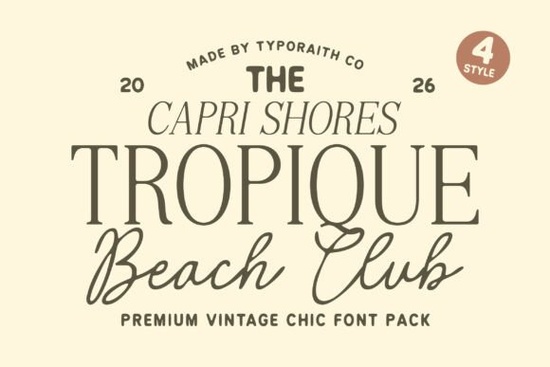
If you're after a typeface that feels like a sun-soaked afternoon at a coastal resort, the Tropique Font delivers that effortlessly. This isn't just one font – it's a complete pack called Tropique Beach Club, blending elegant serif lettering with flowing handwritten scripts. Think luxury hotel branding, vintage editorial layouts, and modern Mediterranean charm all rolled into one download.
What styles are included in the Tropique Font pack?
The collection comes with four distinct styles so you can mix and match without hunting for complementary fonts:
- Elegant serif – clean, refined characters with a timeless feel.
- Flowing signature script – natural handwritten strokes that add a personal, upscale touch.
- Italic serif – slightly slanted for a more relaxed yet sophisticated look.
- Bonus extras – often includes swashes and alternates to customize your text.
This variety means you can use the serif for headlines and the script for subtext or accent words – all while keeping a cohesive, beach-club vibe.
How can I use Tropique Font in branding and logos?
Whether you're designing for a boutique hotel, a coastal café, or a beauty brand, this font pack works well because it balances relaxed with refined. The serif gives you authority and elegance; the script adds approachability. For a logo, try pairing the serif for the business name and the script for a tagline. Or use the script alone for a handwritten, personal brand mark.
If you work with print-on-demand, think about using it on tote bags, ceramic mugs, or beach towels – the coastal theme is built right in. Small businesses selling artisanal products will also find it fits packaging, labels, and hang tags.
Is Tropique Font suitable for wedding invitations?
Absolutely. The combination of elegant serifs and natural script creates exactly the classy-but-warm feel couples look for. Use the serif for the couple's names and the script for details like date and venue. The vintage influence makes it a great choice for rustic, boho, or seaside ceremonies. You can also use it on save-the-dates, menu cards, and thank-you notes without needing to switch font families.
Where else can I use this font pack?
Beyond branding and weddings, try it on:
- Social media templates – Instagram quotes, story highlights, and Pinterest pins with a luxury travel aesthetic.
- Café menus and drink boards – especially if your spot has a coastal or Mediterranean theme.
- Fashion editorials and lookbooks – the retro editorial typography fits magazine-style layouts.
- Beauty product packaging – think skincare, candles, or bath products that want a serene, premium feel.
What fonts pair well with Tropique?
- Test the script style with longer sentences – some scripts don't handle lowercase strings well.
- Try a mockup with your brand colors to see how the vintage feel translates.
- Pair it with a simple sans-serif body font if you need one for website copy or paragraphs.